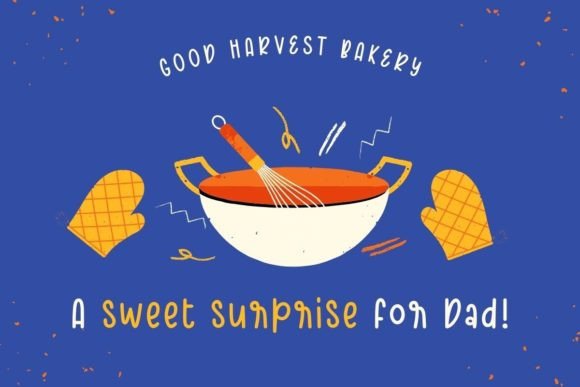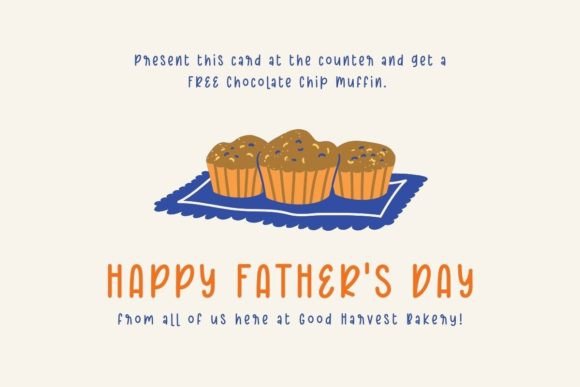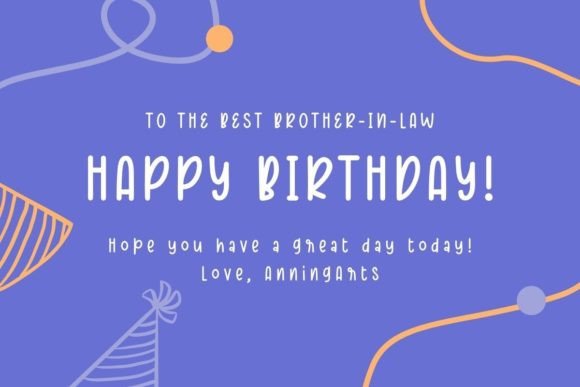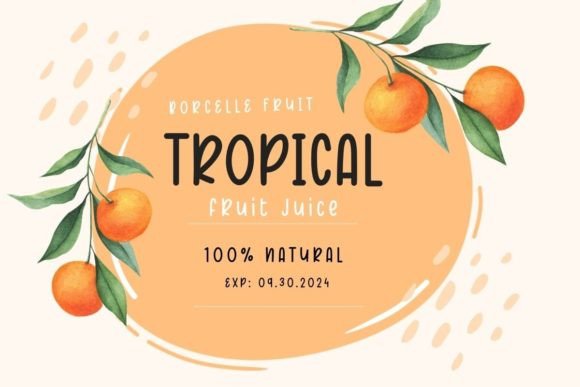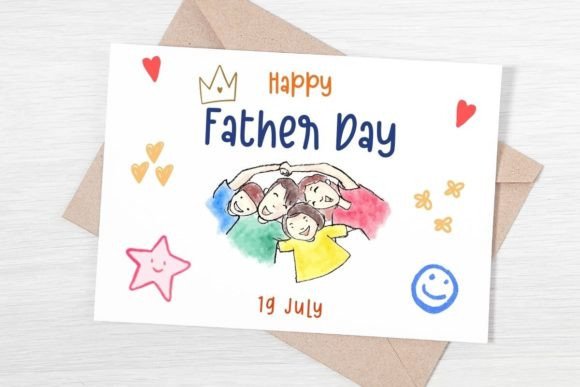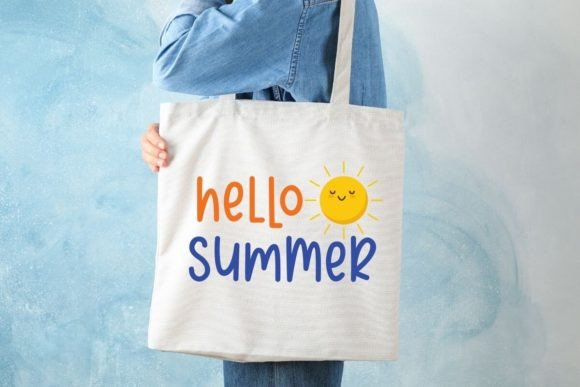
Introduction to Salt Pepper Font
Have you ever sat down with a cup of coffee, a blank notebook, and a spark of creativity? That’s where the magic happens – and for many of us, that’s where the Salt Pepper Font comes in. This delightful handwritten font has been a trusted companion for designers and creatives looking to add a personal touch to their work.
With its multilingual support for English, Spanish, French, German, Portuguese, and Italian, the Salt Pepper Font is a valuable resource for designers working on projects that require a global appeal. Whether you’re creating greeting cards, designing tote bags, or simply jotting down notes, this font is sure to elevate your work with its high-quality, handcrafted feel. And the best part? It’s available for free download, making it an accessible design resource for creatives of all levels.
Key Features of Salt Pepper Font
- High-quality, unique design for creative projects, ideal for use as a design resource
- Unique characteristics include its elegant and sophisticated feel, making it perfect for use in creative projects
Honest Review: Salt Pepper Font
What I love about the Salt Pepper Font is its unique, elegant design. The font features a transparent background, which makes it perfect for creative projects where you need a bit of flair. The high quality of the font is also impressive, with smooth lines and a cohesive look.
- ✨ The Salt Pepper Font is perfect for titles and headings, thanks to its bold and eye-catching design.
- ✨ The font is highly customizable, making it easy to adapt to different design styles and themes.
However, there are a few limitations to consider. ⚠️ The font is not suitable for body text, as it can be a bit overwhelming for large amounts of text.
Overall, I’m impressed with the Salt Pepper Font. It’s a great resource for designers looking to add a bit of sophistication to their creative projects. While it may have some limitations, the benefits far outweigh the drawbacks.
The Salt Pepper Font is a high-quality design resource ideal for creative projects that require a unique and stylish touch. With its transparent background, this font is perfect for designers who want to add a creative twist to their work.
Tips for Getting the Most Out of Salt Pepper Font
To get the most out of the Salt Pepper Font, use it in combination with other design elements to create a cohesive and visually appealing design. Experiment with different font sizes, colors, and arrangements to achieve the desired effect.
Common Use Cases for Salt Pepper Font
The Salt Pepper Font is perfect for designers who work on creative projects, such as graphic design, digital art, and typography. It’s also ideal for personal projects, such as creating custom invitations, business cards, and social media graphics.
By incorporating the Salt Pepper Font into your design, you’ll be able to add a touch of sophistication and elegance to your work. Its high quality and unique design make it an excellent choice for any creative project. So why not give it a try? Download the Salt Pepper Font today and experience the difference it can make in your designs.